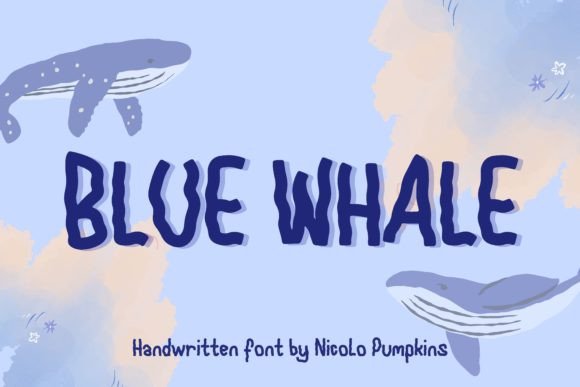
The Blue Whale Font: A Friendly and Versatile Companion for Your Creative Projects
Have you ever been in the middle of a design project, pouring your heart and soul into it, only to get stuck on one thing: the font? I certainly have! It was a typical Wednesday afternoon when I was working on a branding project for a new client, and I just couldn’t find the right font to capture the playful yet professional vibe they were looking for. That’s when I stumbled upon the Blue Whale font, and let me tell you, it was love at first sight! 😍
A Personal Review: What I Love About Blue Whale
So, what makes Blue Whale so special? Here are a few things that I absolutely adore about this font:
- ✨ Wavy and playful: The Blue Whale font has this beautiful, wavy texture that gives it a super friendly and approachable feel. It’s perfect for designs that need a bit of personality and whimsy!
- 💫 Versatile: Whether you’re creating quotes, logos, or any other kind of lettering project, Blue Whale is up to the task. It’s one of those fonts that can adapt to any style or theme.
Of course, no font is perfect, and Blue Whale is no exception. Here are a few things to keep in mind:
- 🤔 Legibility at small sizes: While Blue Whale is stunning at larger sizes, it can get a bit tricky to read when scaled down. So, make sure to test it out at different sizes to ensure it works for your project.
- ⚠️ Overuse of swashes: With great power comes great responsibility! While the swashes in Blue Whale are gorgeous, using too many can make your text look cluttered. Balance is key.
The Story Behind Blue Whale
While the origins of Blue Whale might be shrouded in mystery, it’s easy to imagine that its creator was inspired by the majestic beauty of the ocean and its inhabitants. Perhaps a long day at the beach sparked the idea for this wavy and friendly font? 🌊
| Author | Nicolo Pumpkins |
| Is Blue Whale suitable for body text? | While Blue Whale is stunning for headings and titles, its wavy nature can make it a bit challenging to read for longer body text. It’s best used for short paragraphs or quotes. |
And there you have it! Blue Whale is more than just a font; it’s a creative companion that can bring a touch of playfulness and professionalism to your projects. Whether you’re a designer, crafter, or hobbyist, Blue Whale is sure to make your creative ideas stand out. 🌟